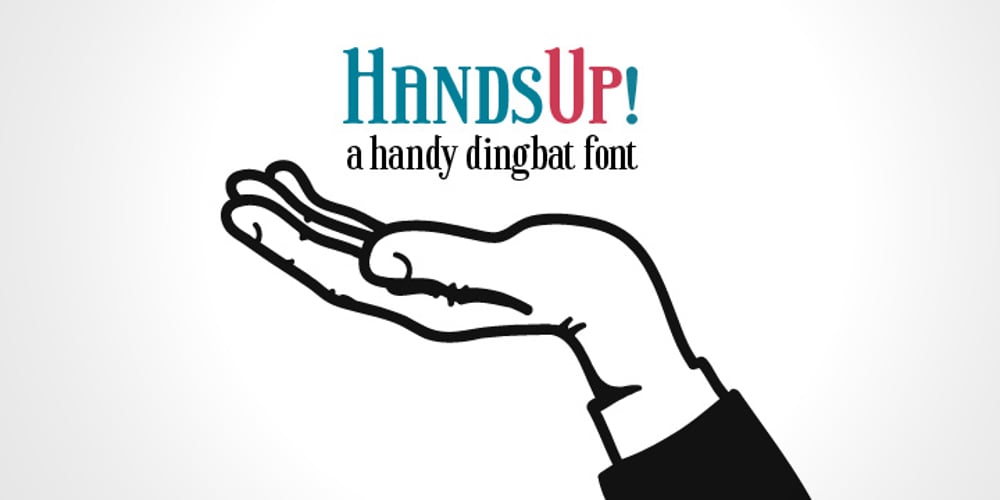
Hands Up Font Family was designed by Juanjo Lopez and published by Huy!Fonts. Hands Up contains 1 styles and family package options. Hands Up is a useful collection of hand designs, with or without shirt. It has from pointing hand to annoying hands or happy hands and some give-the-finger hands. They are drawing in a clear cartoon style, suitable for modern designs.